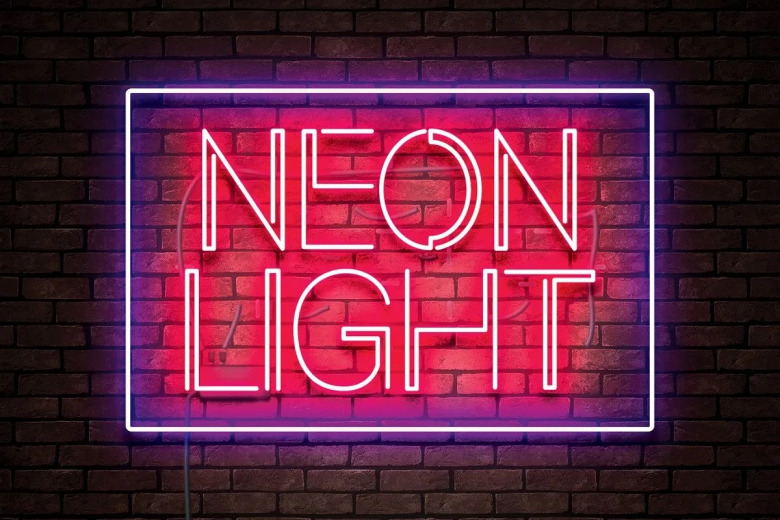
Neon Light Font
Introducing Neon Lightis a coolbold display font, suitable for modern and futuristic design concept Please include this neon font in the list of all your creative ideas and see how they grab attention! Great choice for branding projects, Logo design, Clothing Branding, product packaging, magazine headers, or Martell unique text needs and more.
Neon Light Display Font